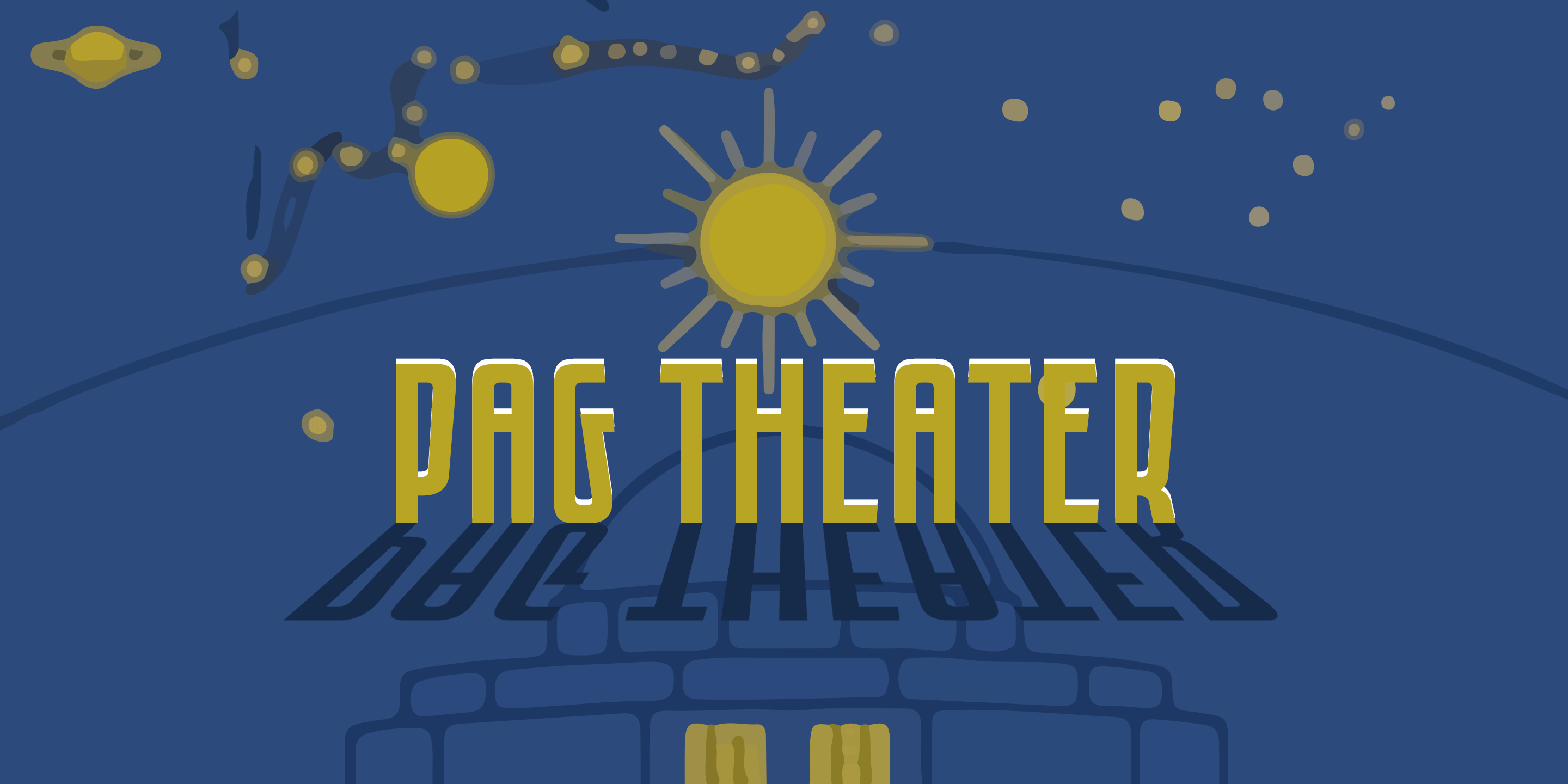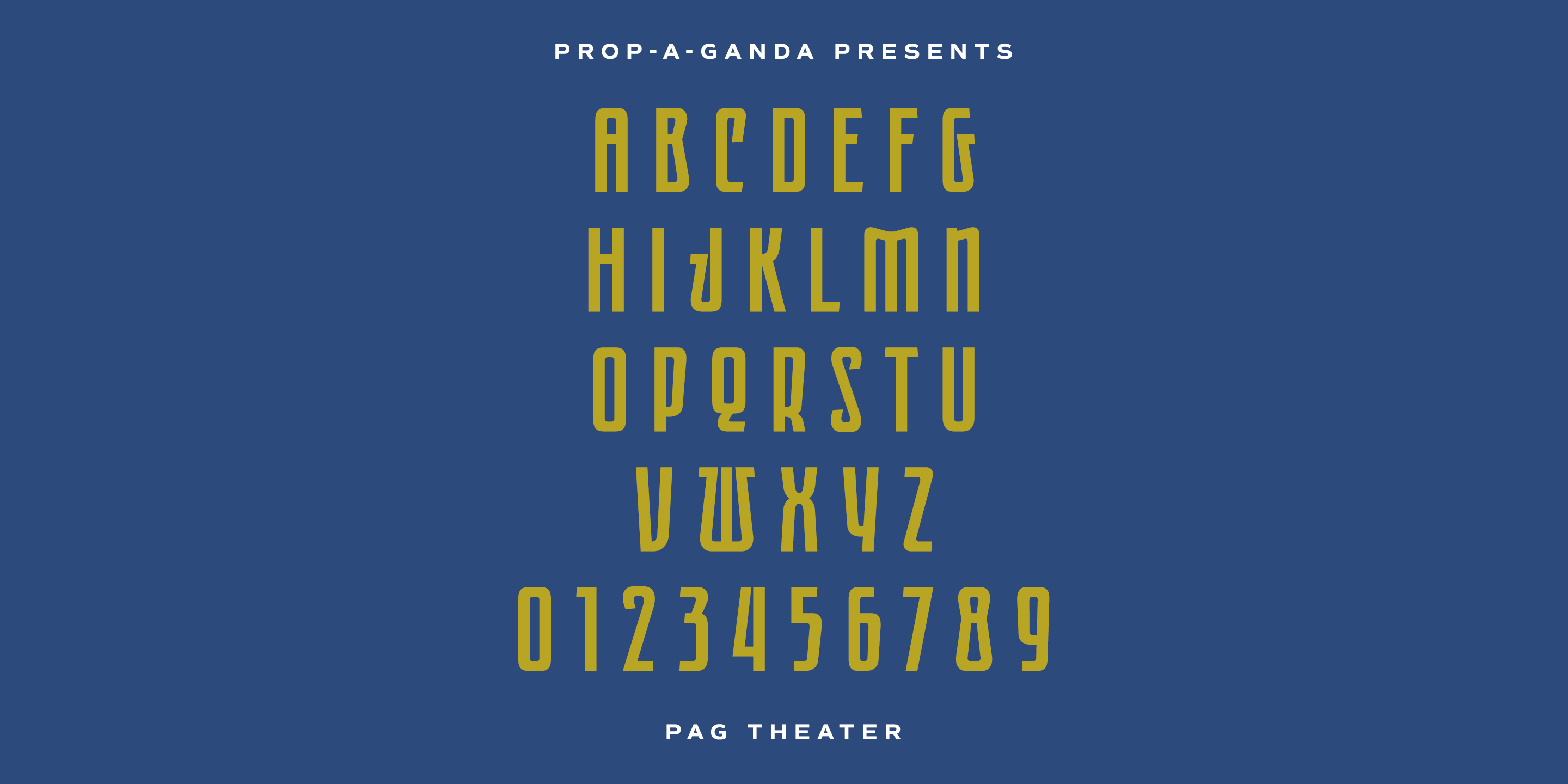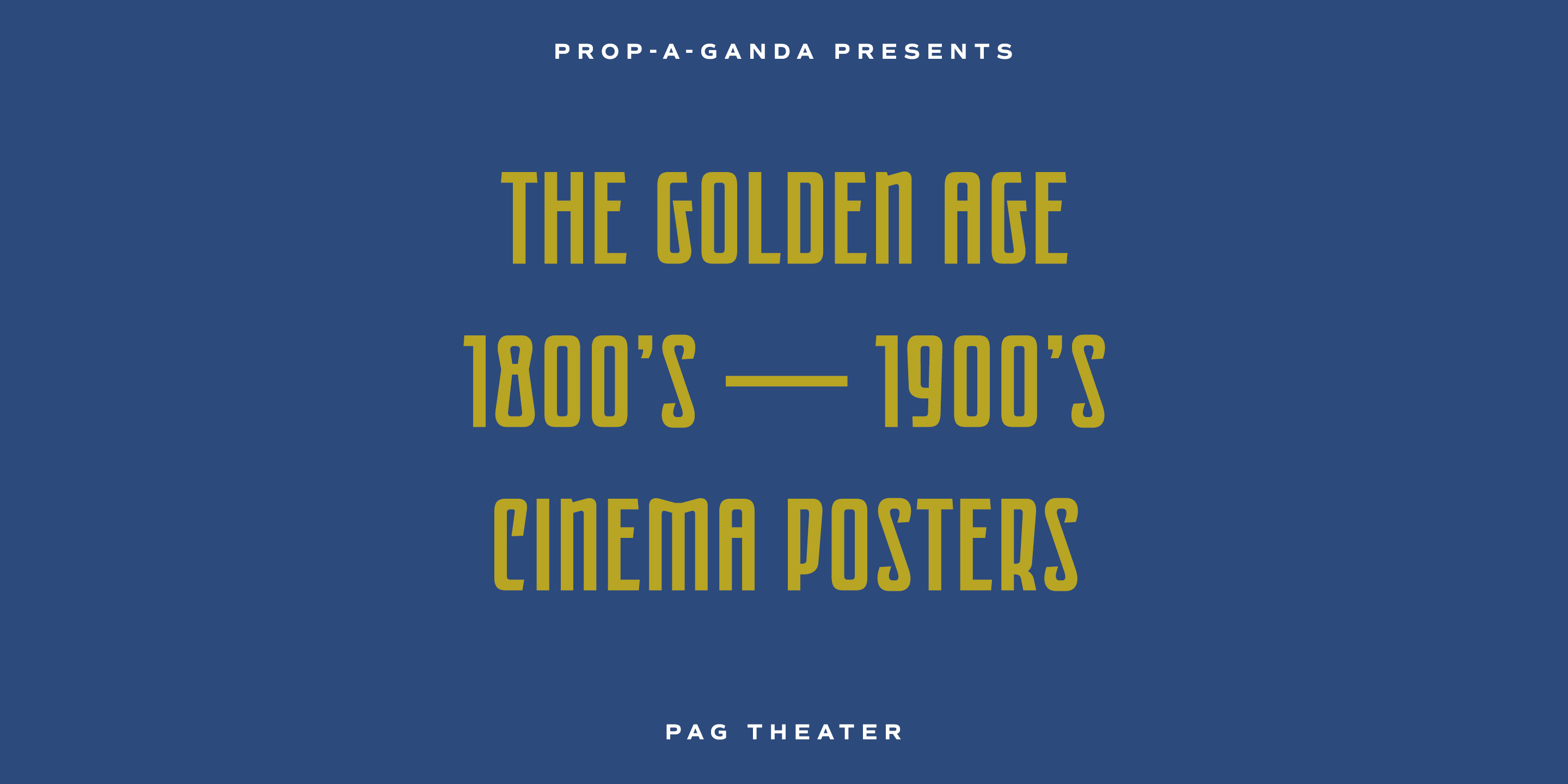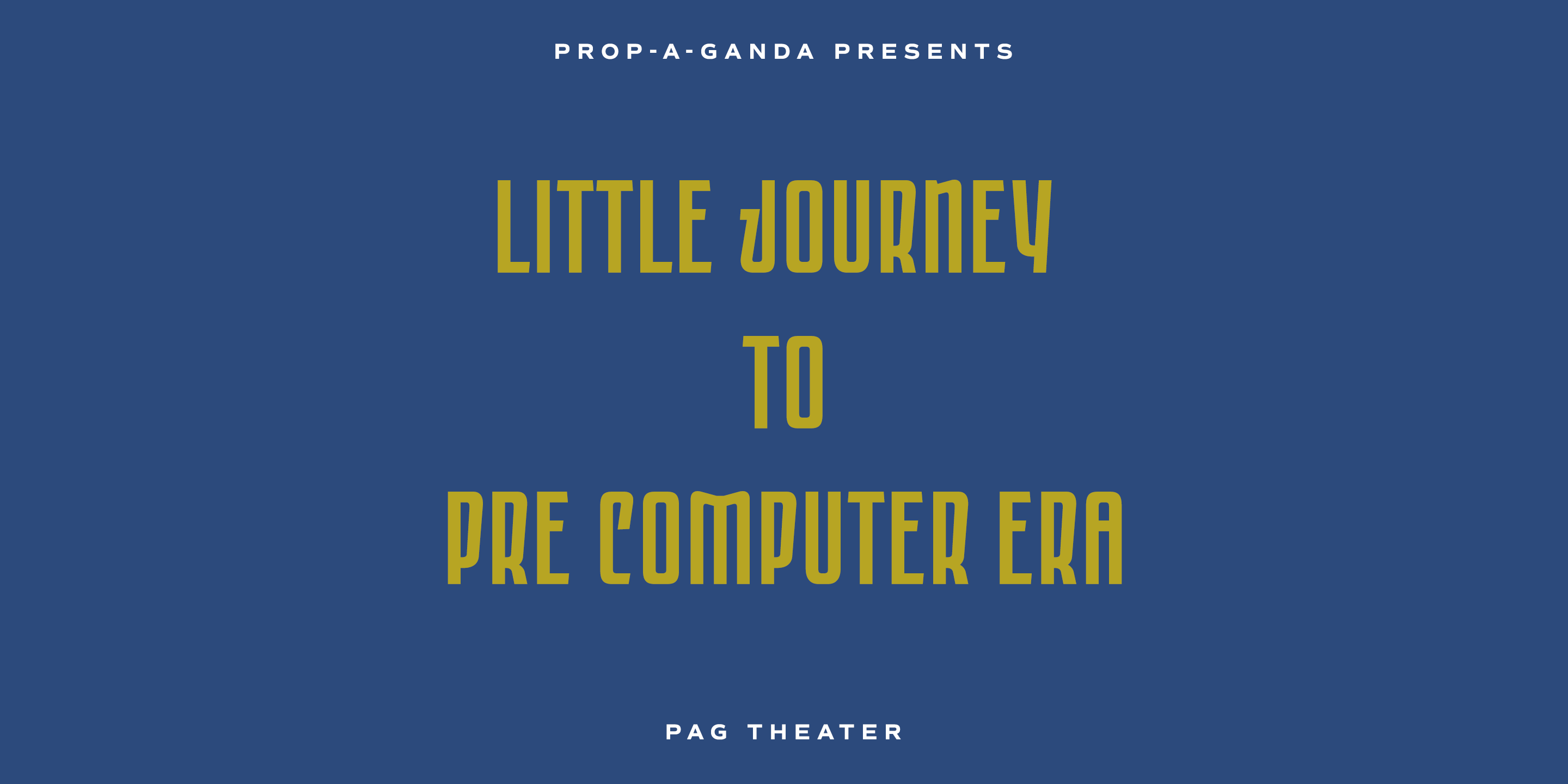
PAG Theater
Font Family by Dharma Type
Prop-a-ganda offers retro-flavored fonts inspired by lettering on retro propaganda posters, retro advertising posters, retro packages all the world over. This is perfect font for your retrospective project. PAG Theater is narrow and monoline font, it definitely retrospective font, but it is also modern and contemporary. Perfect font for display, poster and logo.